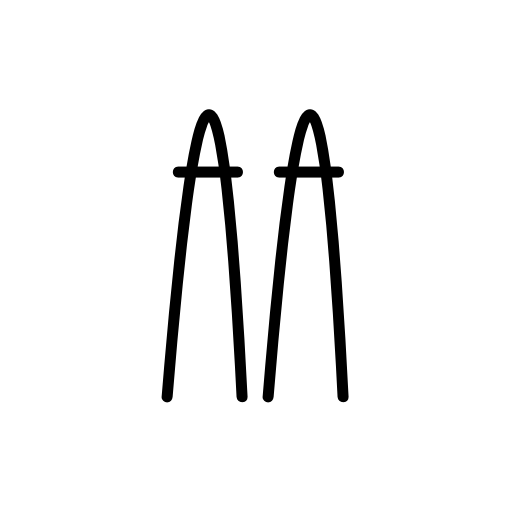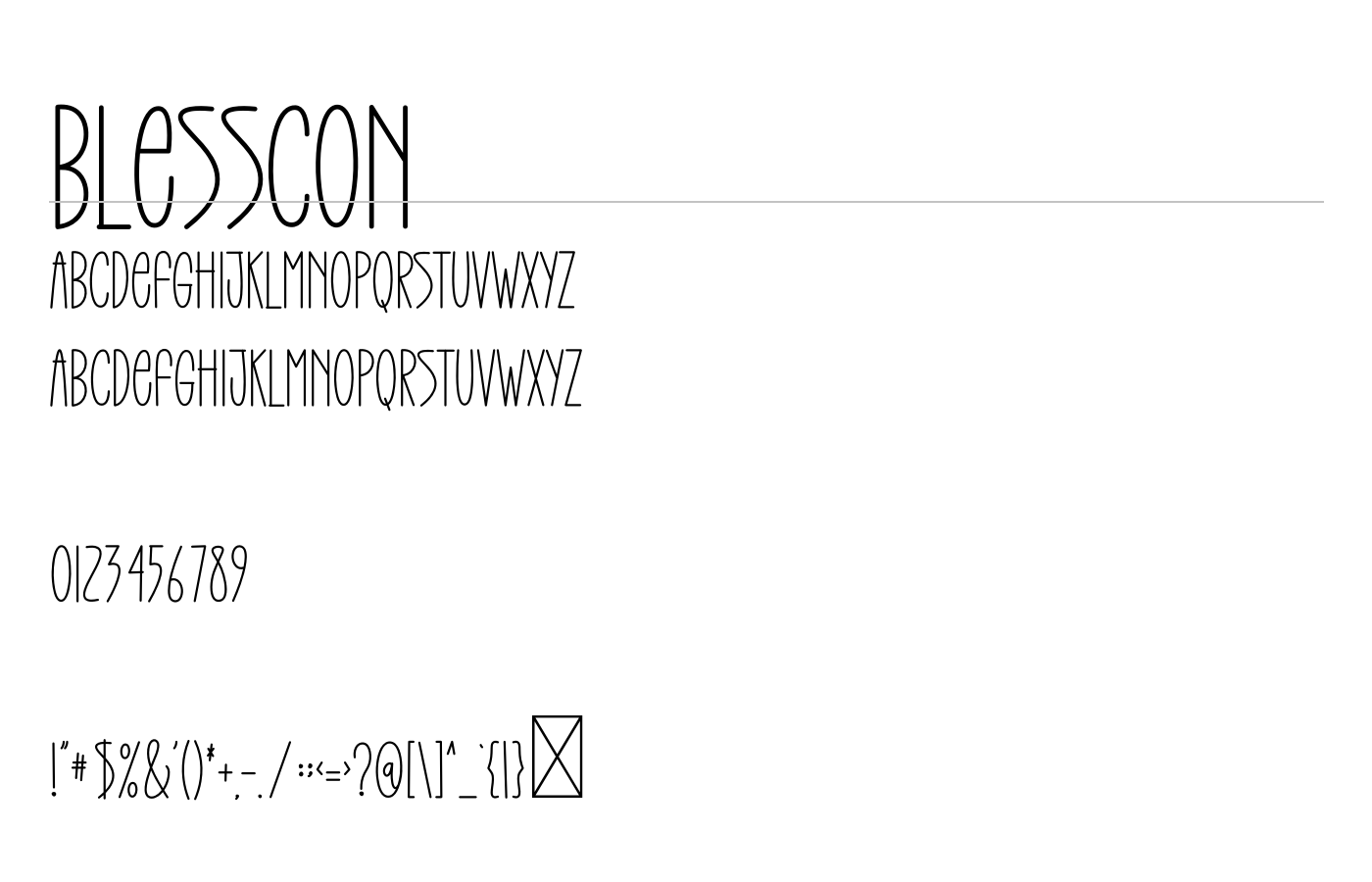
Blesscon is a tall, narrow sans serif font with a playful, hand-drawn feel, characterized by its thin strokes and distinctive quirky letterforms. Its elegant yet casual style makes it great for creative branding, invitations, and headlines where a unique, approachable personality is desired. This font adds a touch of whimsy and sophistication, perfect for projects needing a modern but friendly look.
Blesscon Font